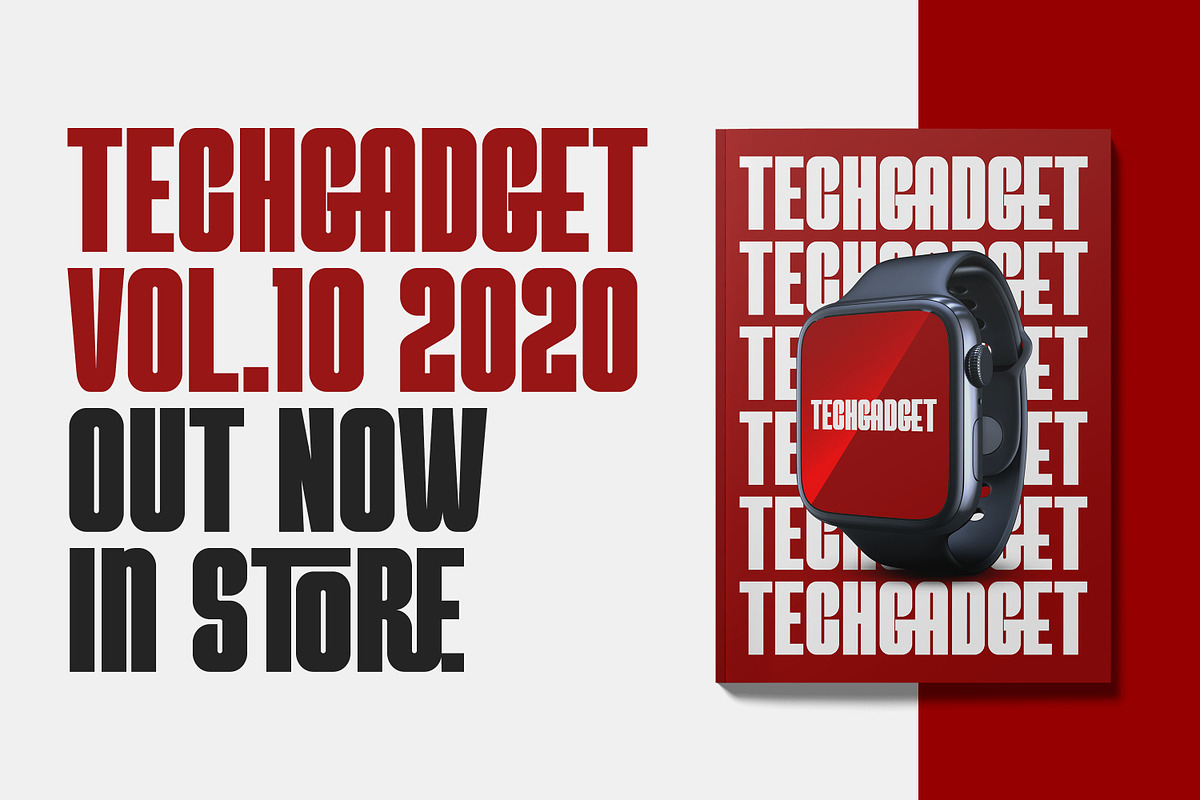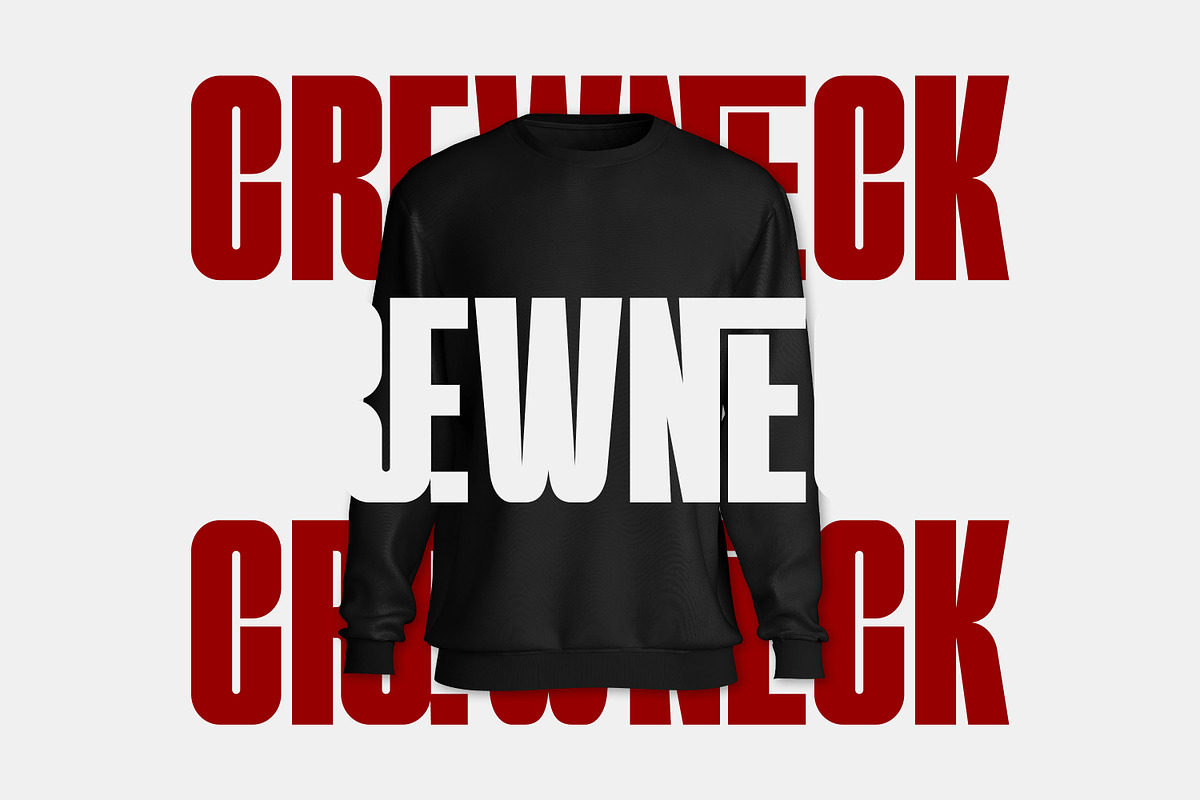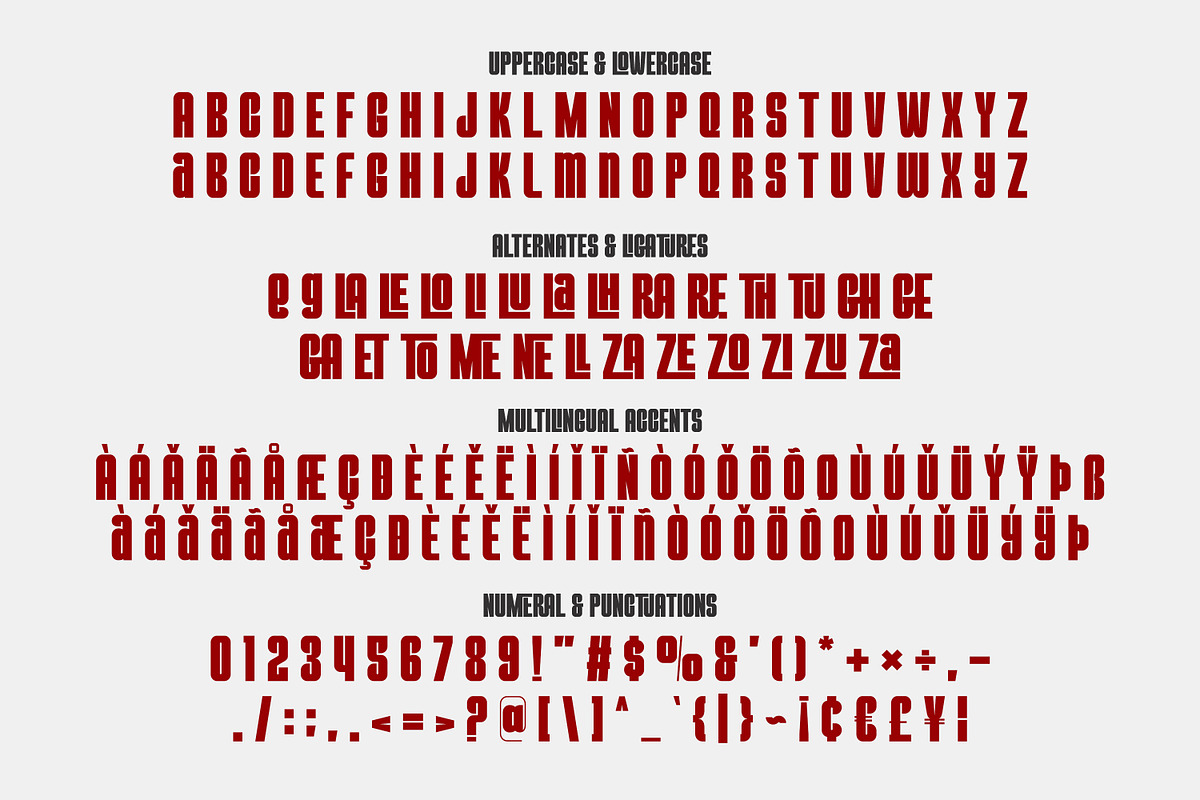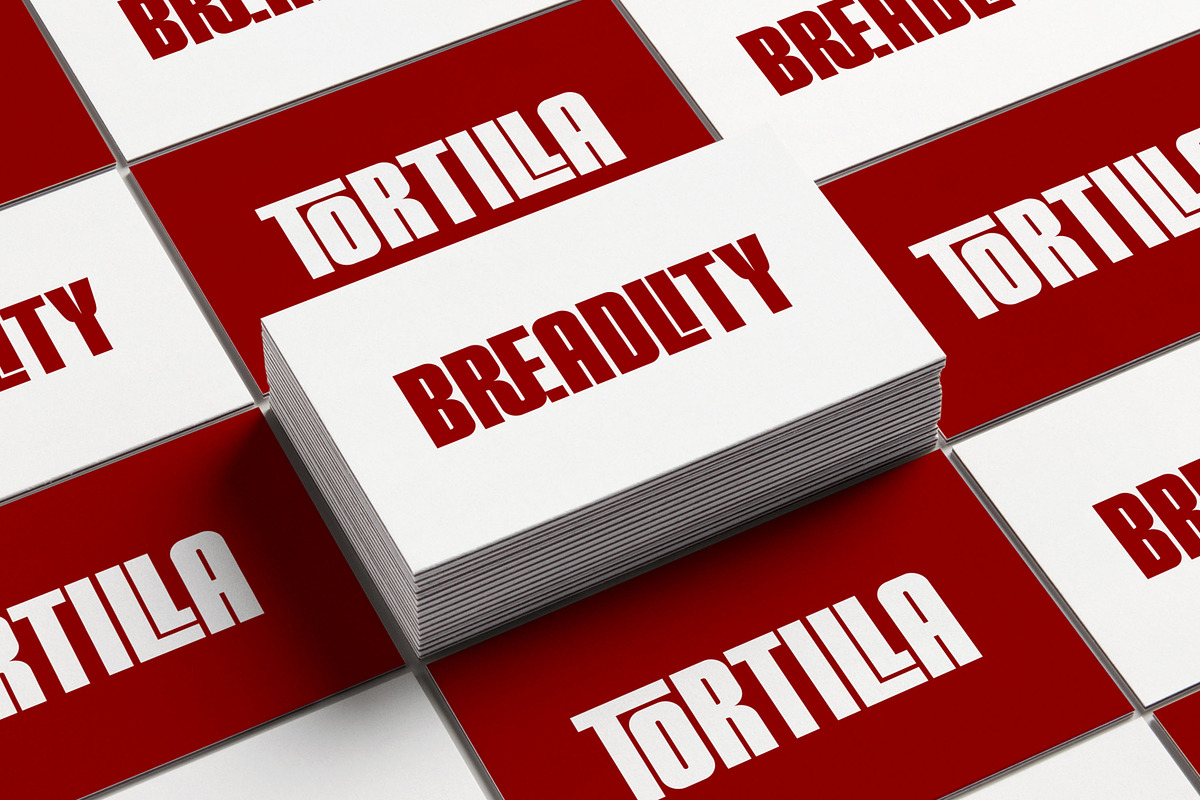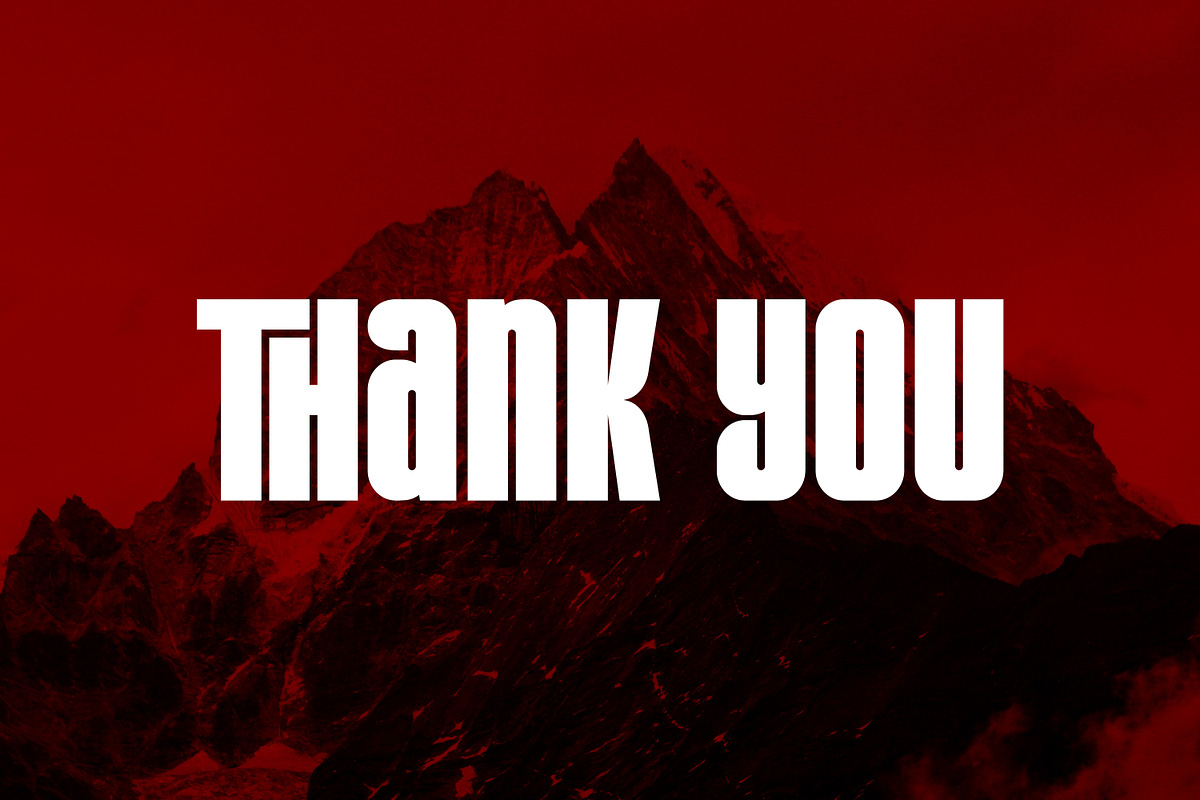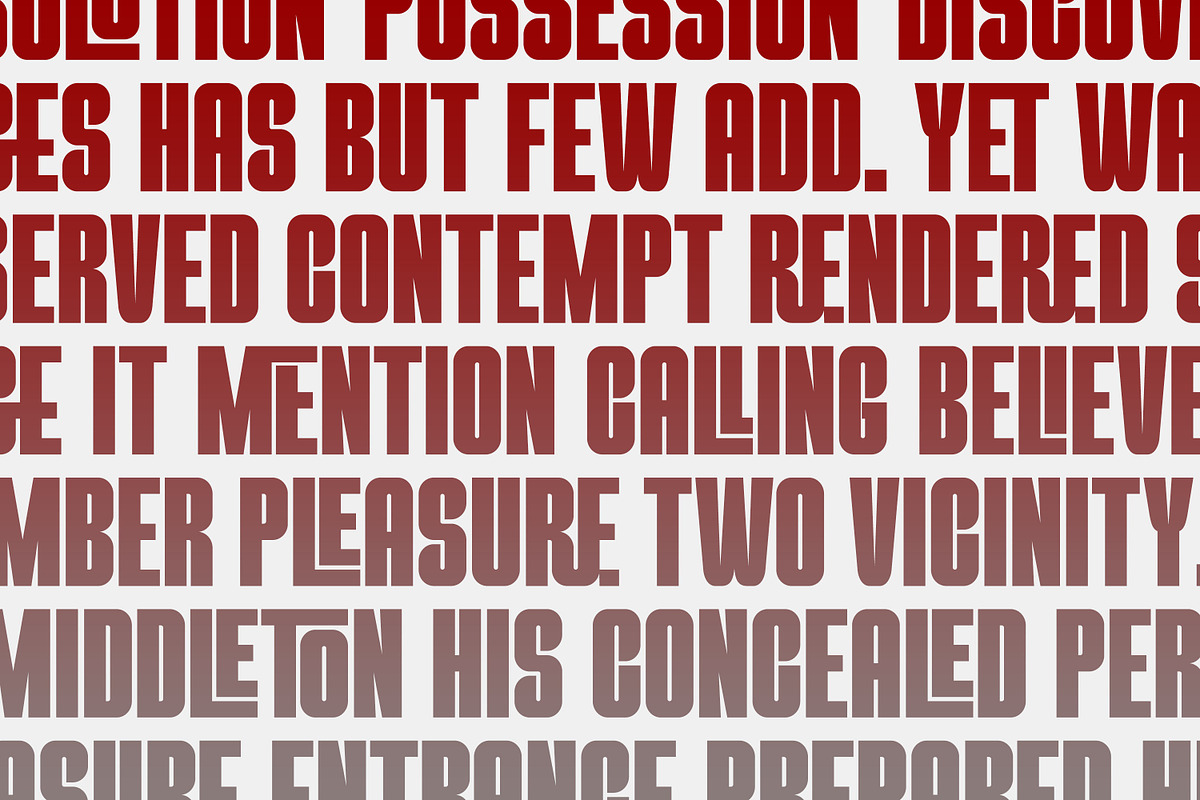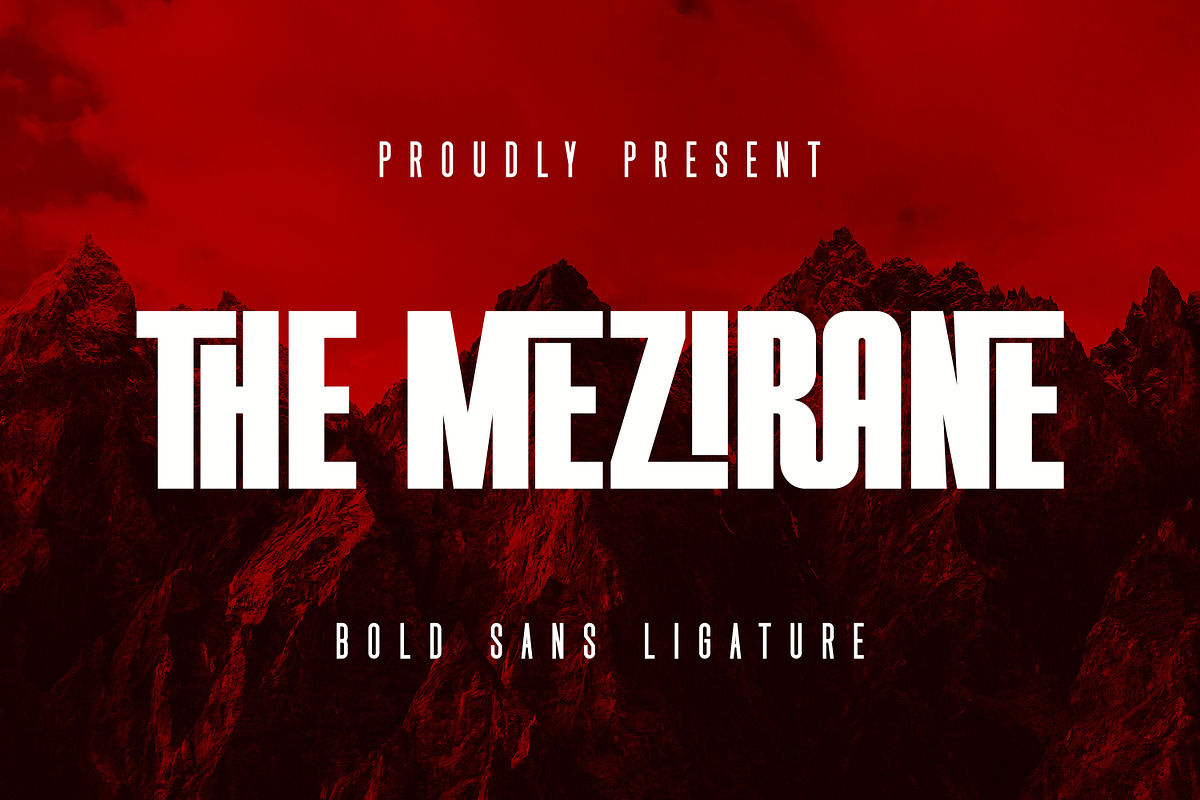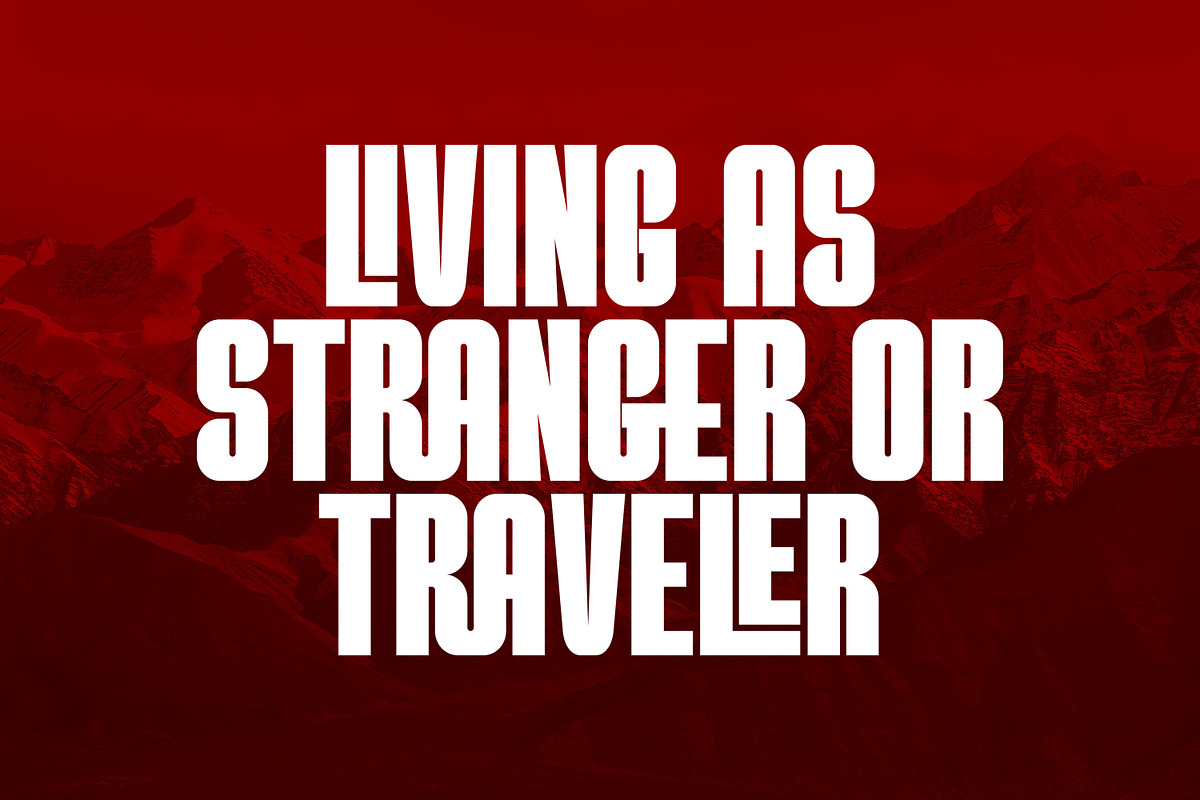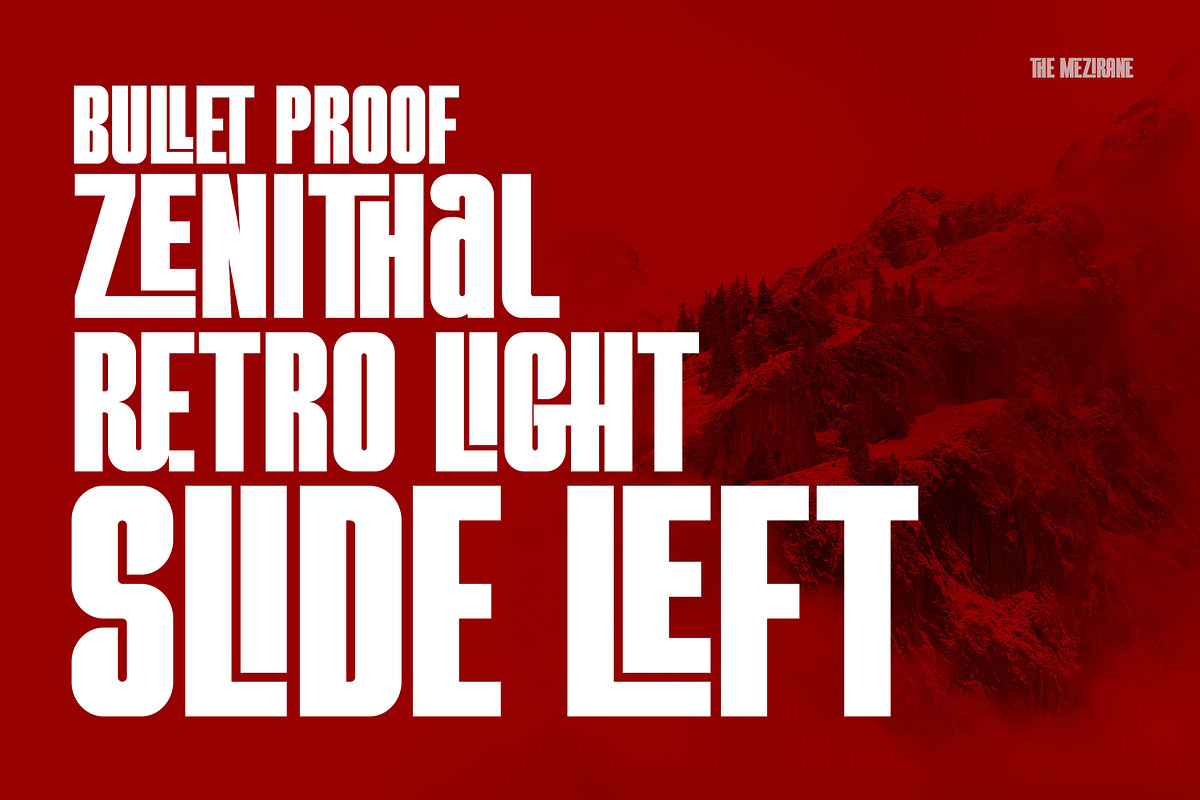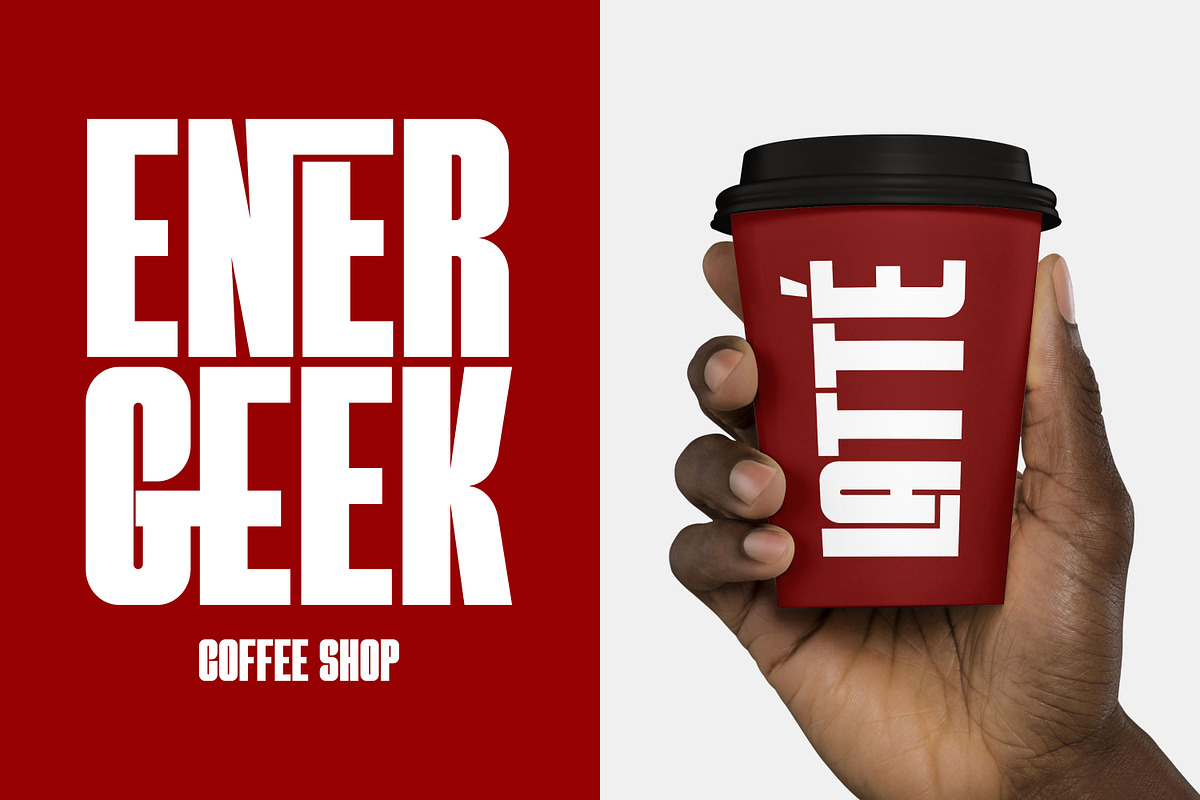
The Mezirane - Bold Sans Ligature
Hello Everyone, introduce our new product The Mezirane - Bold Sans Ligature inspired by the title of the sports poster,We make it very energetically, taking into account the thickness and density of each gliph, along with a ligature that makes this font look unique.
The Mezirane font with strong and challenging nuances. very suitable for the title, typography, clothes, Poster, magazines, brochures, packaging,Websites and much more for your design needs, making your designs more modern and professional
- Standard glyphs & 25 Ligatures